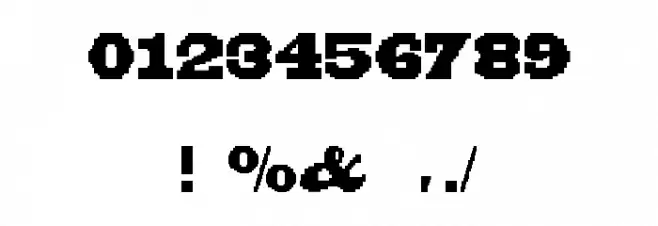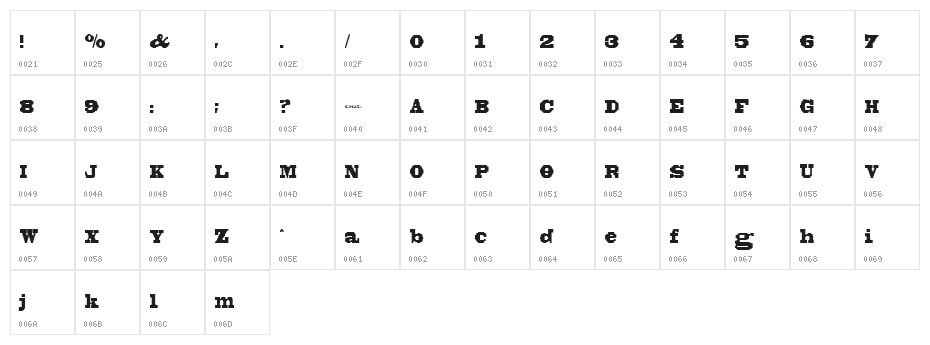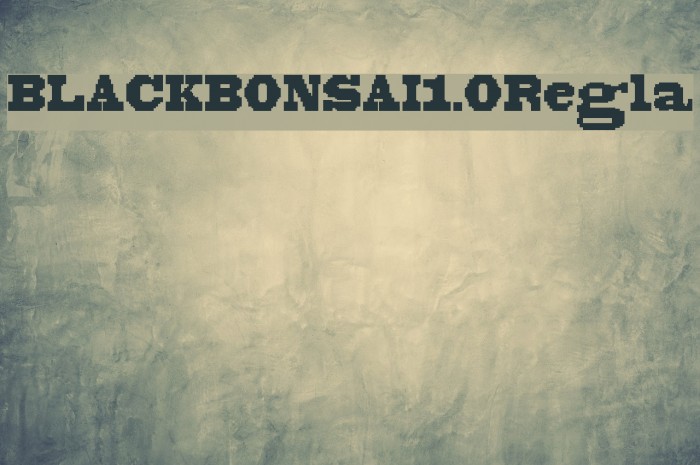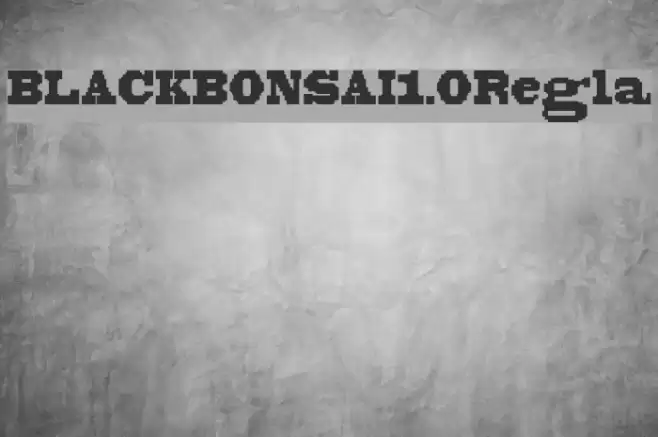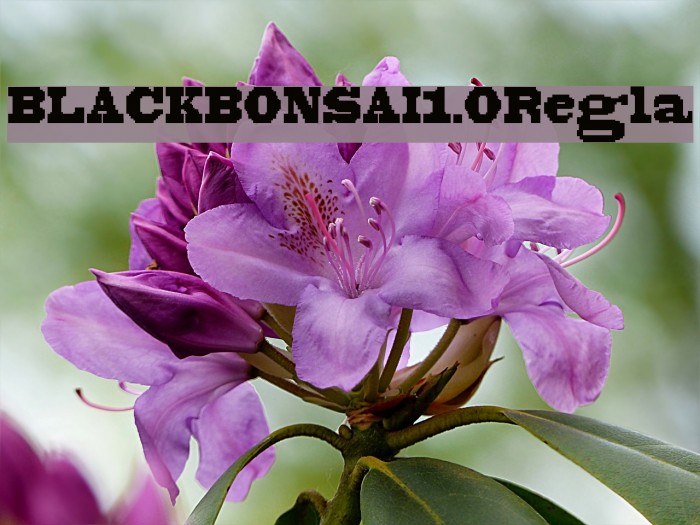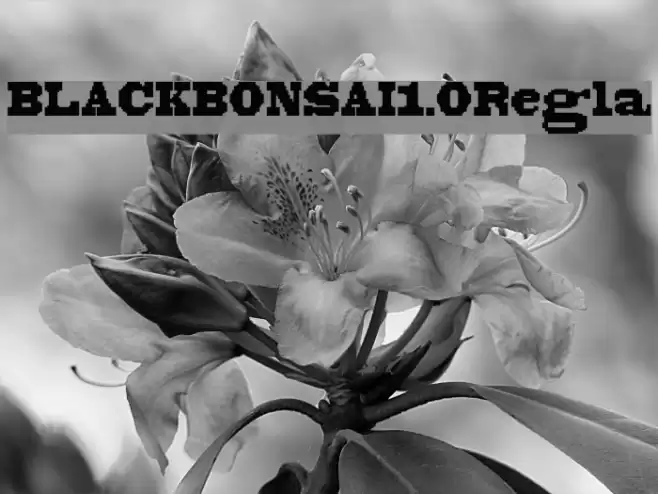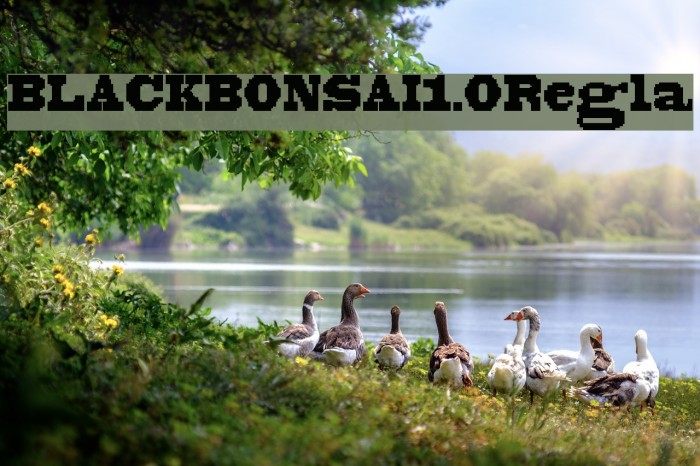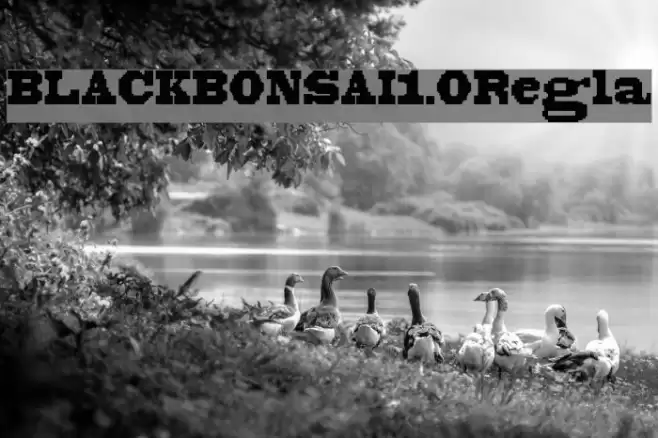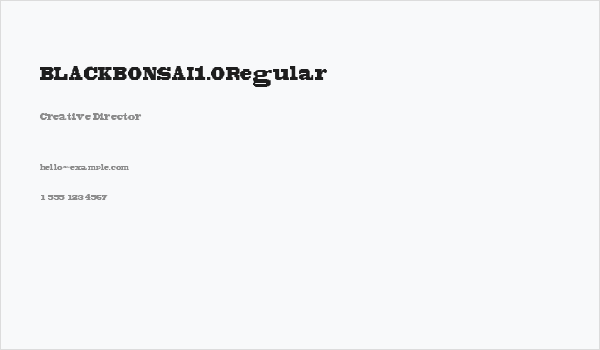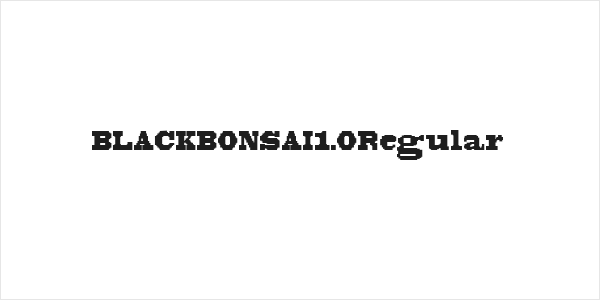
BLACKBONSAI1.0Regular Font
BLACKBONSAI1.0Regular Description
This font features a bold and robust slab serif style, characterized by thick, block-like serifs and a strong presence. The uppercase letters are uniform and commanding, while the lowercase letters maintain a consistent weight, providing a balanced appearance. The numerals are equally bold, ensuring readability and impact. Special characters are designed with the same boldness, making them stand out. The overall design is reminiscent of vintage typefaces, yet it maintains a modern appeal with its clean lines and structured form.